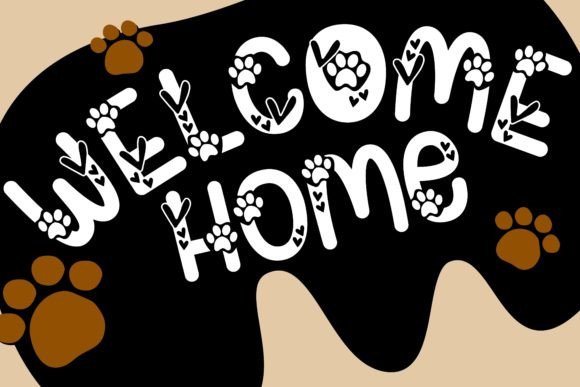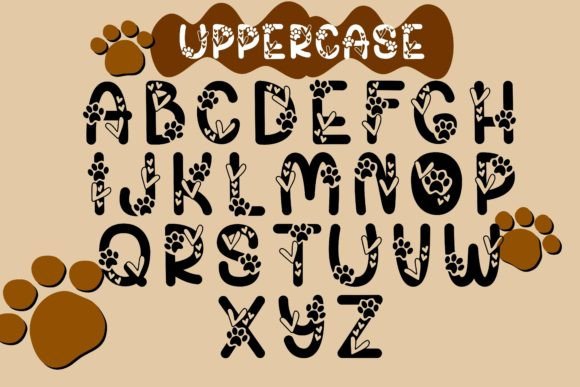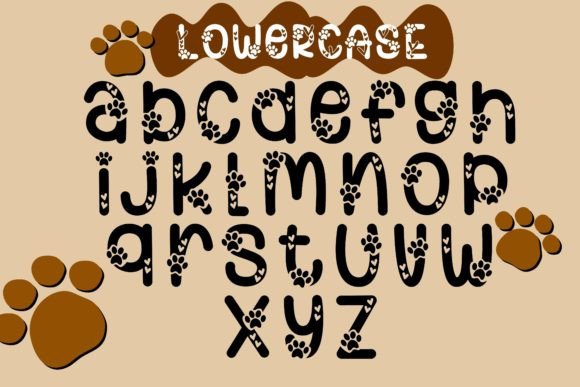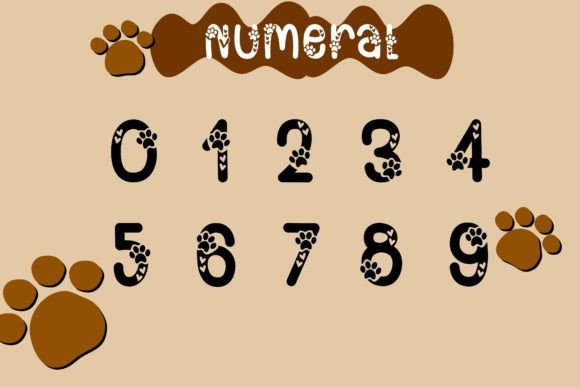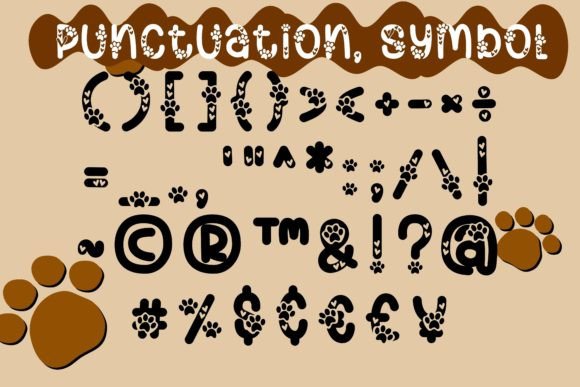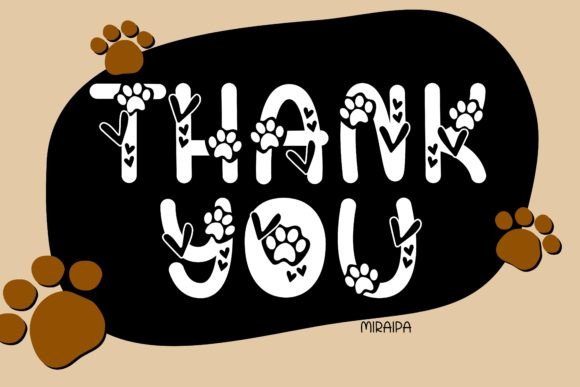
Introduction to Lovely Paws Font Font Font
Fonts play a crucial role in design, and the Lovely Paws Font Font font is a typeface that brings both character and versatility to any project. Whether you’re working on a branding project, a website, or a print design, the Lovely Paws Font Font font offers a unique style that can elevate your work.
Lovely Paws is a sweet and adorable handwritten decorative font.
Add it to your creative ideas and you will be amazed by the outcome generated .
Key Features of Lovely Paws Font Font Font
Why Choose Lovely Paws Font Font Font?
The Lovely Paws Font Font font is more than just a typeface – it’s a design tool that helps you communicate your message with style and clarity. Its unique character set and versatile design make it suitable for a wide range of applications, from elegant invitations to bold headlines.
With its carefully crafted letterforms and balanced proportions, the Lovely Paws Font Font font ensures readability and visual appeal across all mediums.
What makes Lovely Paws Font Font font special?
The Lovely Paws Font Font font stands out with its unique design, exceptional readability, and versatility across various design applications.